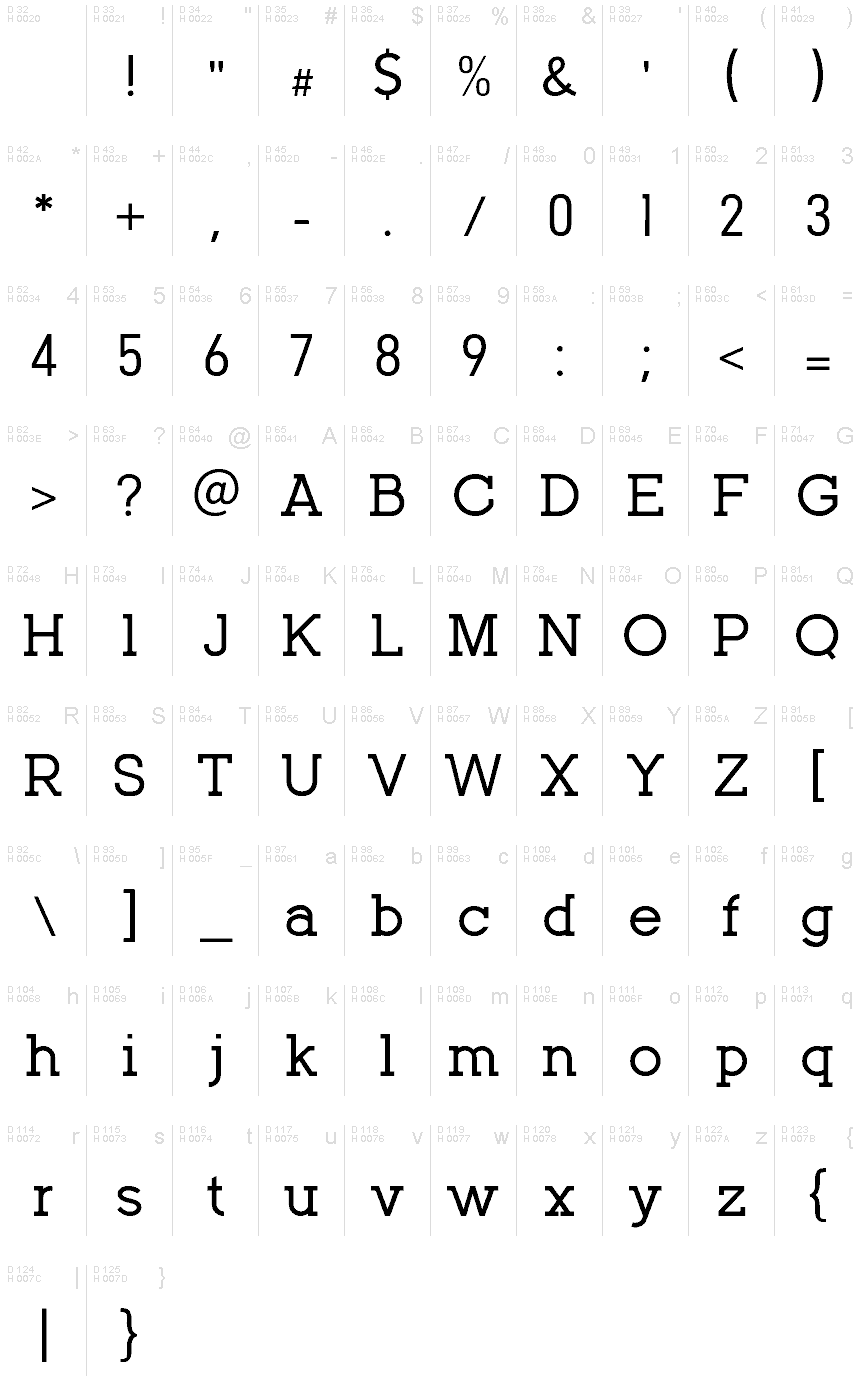
NORHEASTSLAB
Norheastslab font by UI Creative is a modern classic slab serif typeface that’s geometric, rugged, and multi-functional. The characters are solid, beautifully outlined, and enjoy a very strong presence in titles written with large sizes. This is another case where less is more as simplicity blends perfectly with the slight details of these unusual letter shapes.
Take advantage of this free serif font to uplift your headlines, body text paragraphs, company logo design ideas, magazines designed for your readers’ pleasure among other publications or print media. It suits packaging projects as well that include packaged foods like cereals or drink cans or bottles. Other uses extend to any form of website typography.